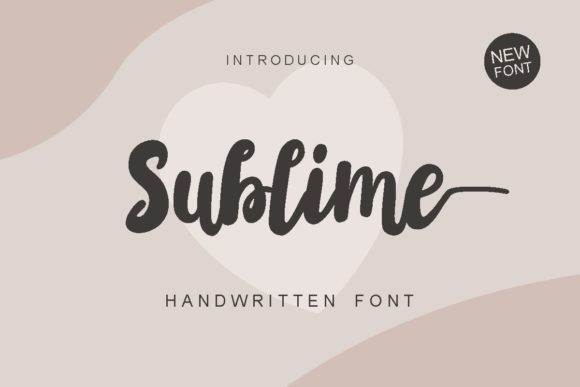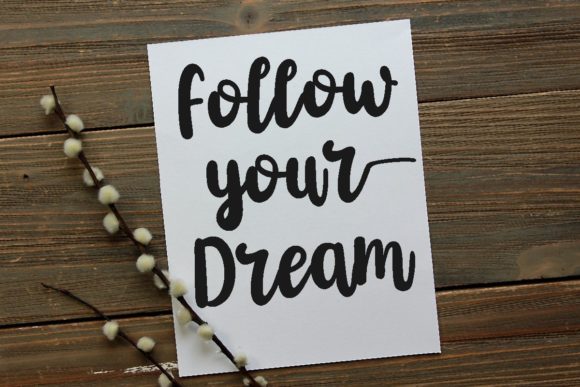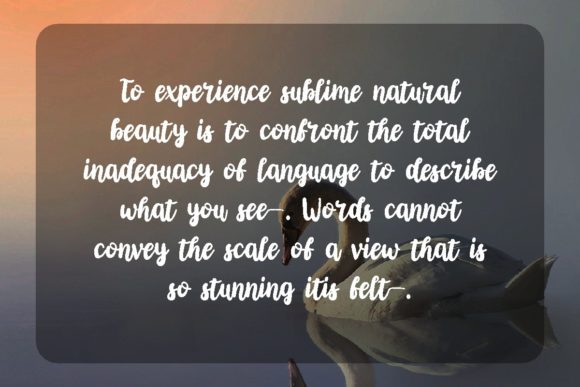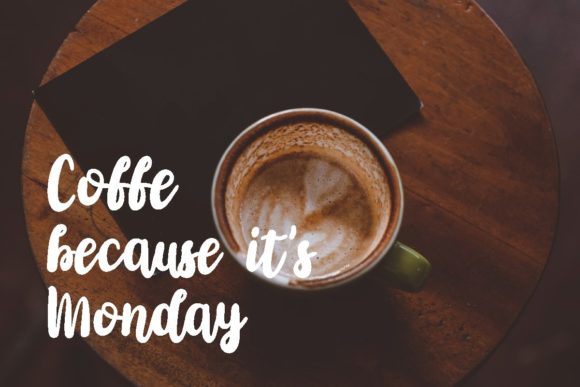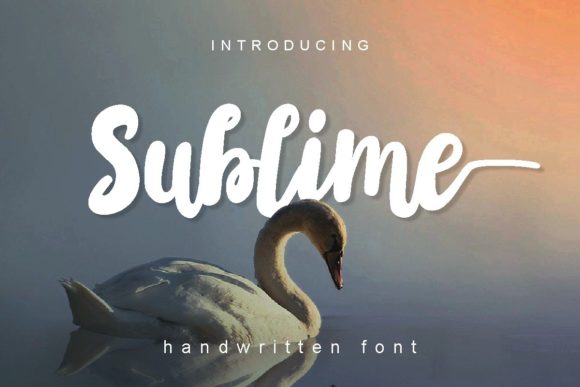
About Sublime Font
Sublime is a distinct script font that’s neatly crafted and highly detailed. Whatever the topic, this font will be a wonderful asset to your font library, as it has the potential to enhance any creation!